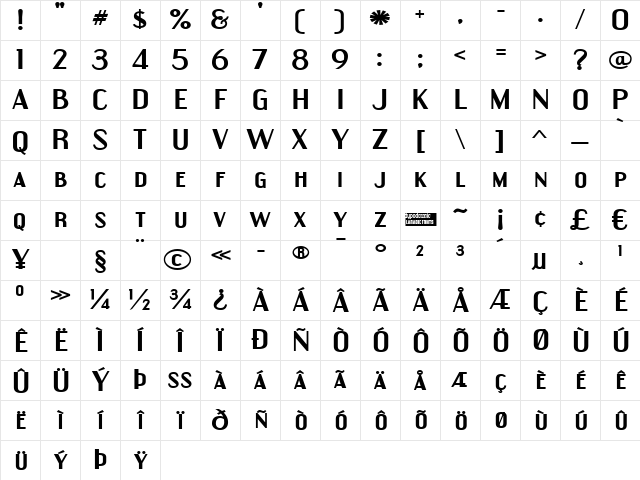
Engebrechtre Expanded Bold
Engebrechtre Expanded Family
Design Context for Engebrechtre Expanded
Engebrechtre Expanded is a composed and adaptable typeface that performs quietly and consistently across a wide range of design contexts. Its bold stroke weight gives it real presence on the page.
Pro Tip: Use Engebrechtre Expanded in both headline and body roles to test its range before committing to a single application.